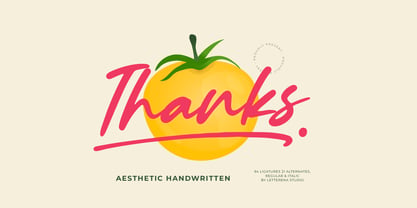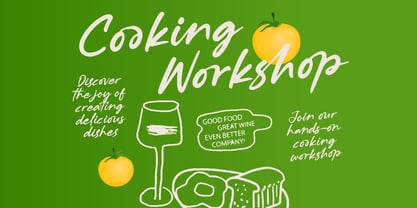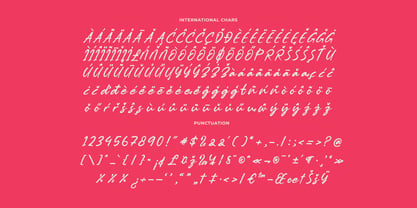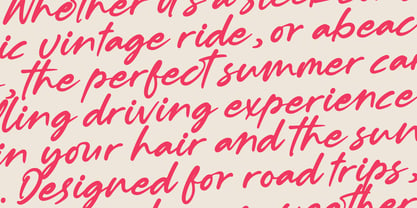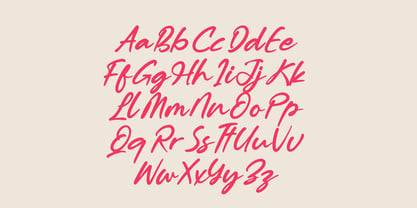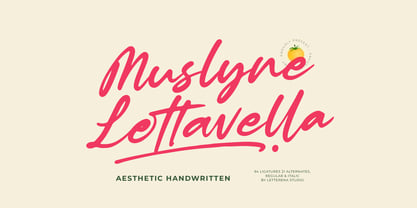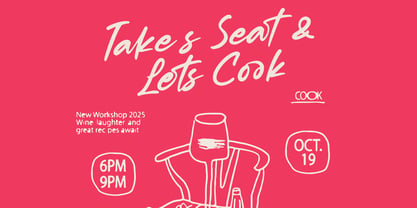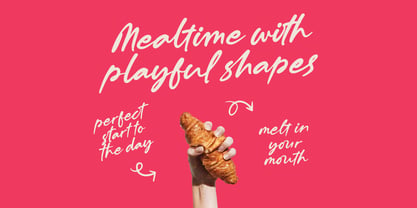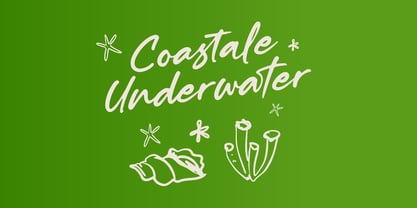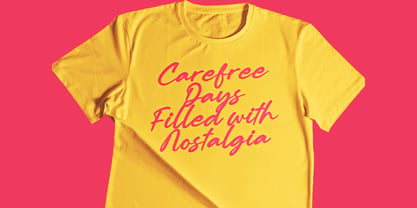
Muslyne Lettavella
by Letterena Studios
The Muslyne Lettavella Font Family was designed by Heru Utama Putra and published by Letterena Studios. Muslyne Lettavella contains 2 styles and family package options. More about this family
Muslyne Lettavella – Aesthetic Handwritten Font , Muslyne Lettavella is an aesthetic handwritten script with smooth curves, energetic strokes, and a modern casual vibe. Packed with 94 ligatures and 21 alternates, this font delivers a natural handwritten feel that works flawlessly for branding, social media visuals, product packaging, signatures, quotes, and lifestyle-themed designs. Its flowing structure brings personality and elegance without feeling overly formal—perfect for creators who want expressive handwriting with a clean, modern finish.